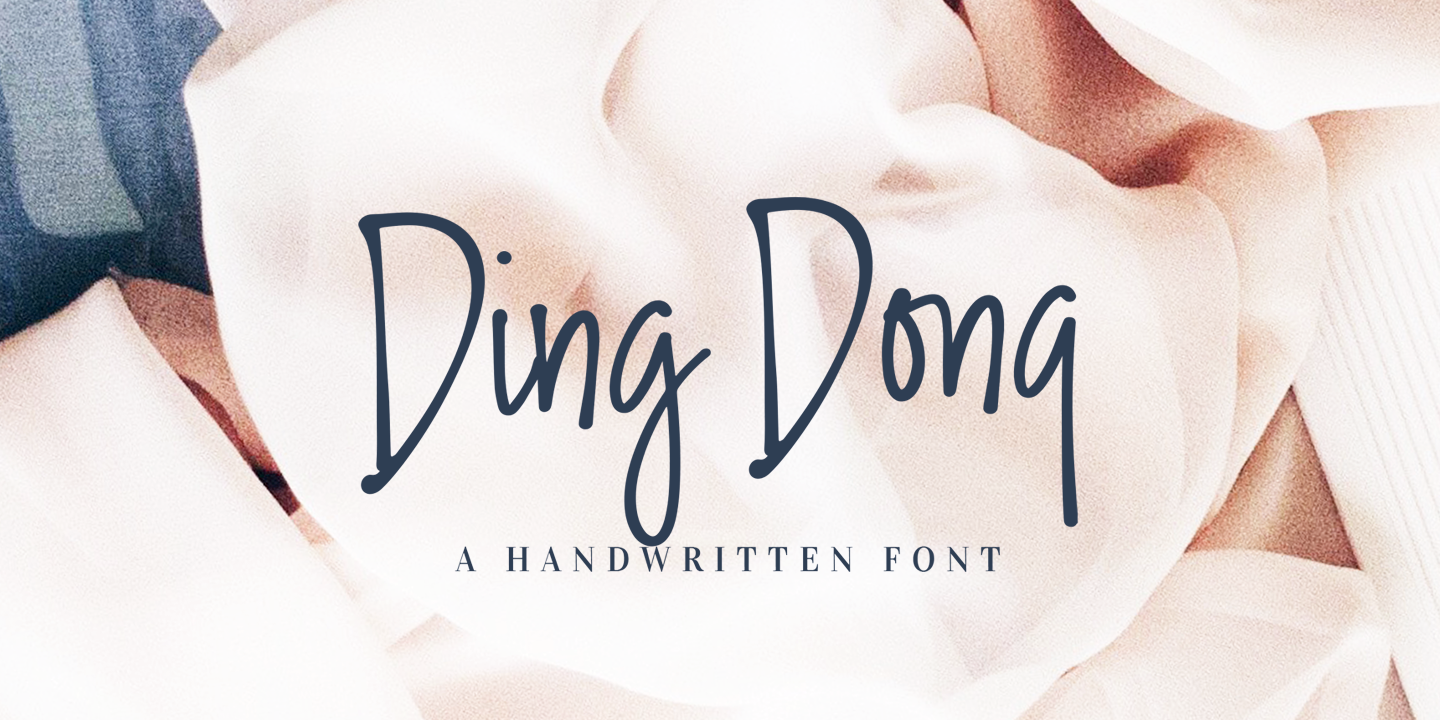
Ding Dong Font is perfect for children's educational materials, playful branding campaigns, toy packaging designs, nursery school signage, cartoon character promotions, fun party invitations, comic book projects, and whimsical marketing communications.
This cheerful display typeface is exciting because it captures the joyful sound and playful energy of doorbell chimes through bouncy letterforms that evoke childhood wonder and the delightful surprises that come with unexpected visitors.
The Ding Dong Font family includes regular and bold weights with playful alternates, bell-inspired decorative elements, and whimsical variants that enhance the fun, musical atmosphere of any child-friendly design project.
Playful and musical, Ding Dong Font Free Download brings the cheerful melody of doorbell chimes to contemporary typography through pure joy and childlike wonder. This delightful font embodies the excitement and anticipation that comes with doorbell rings and surprise visits, making it perfect for brands targeting families and children who appreciate fun and spontaneity. Its bouncy character reflects the musical rhythm and happy surprises that make childhood memorable, resonating with audiences who value playfulness and genuine happiness. Perfect for toy companies and children's entertainment, this font ensures your message carries the infectious joy and musical charm that young audiences adore. Whether used for birthday party materials or educational games, Ding Dong Font Free Download delivers the playful authenticity and musical happiness that connects with families seeking genuine fun and positive experiences that create lasting childhood memories filled with laughter and surprise.